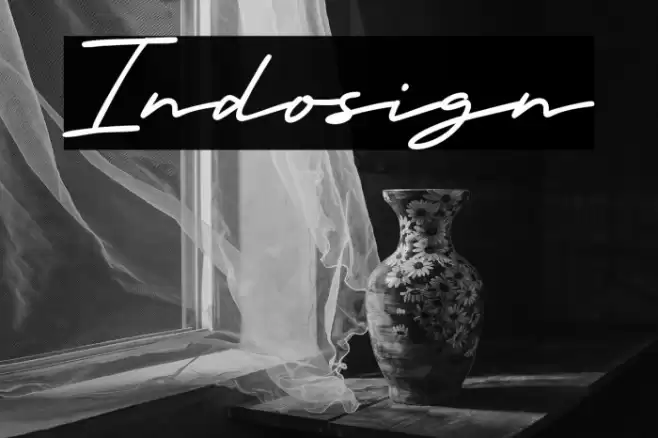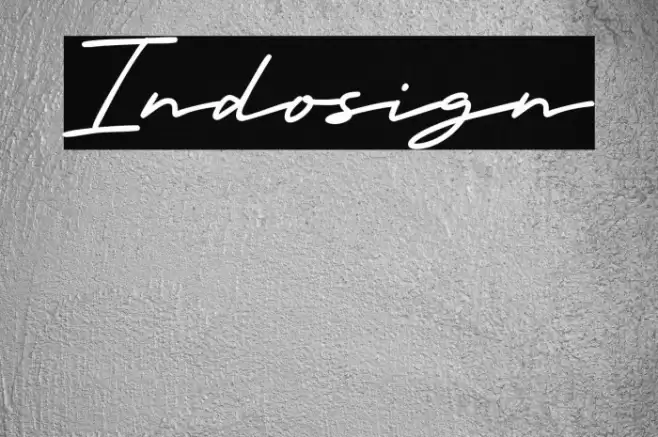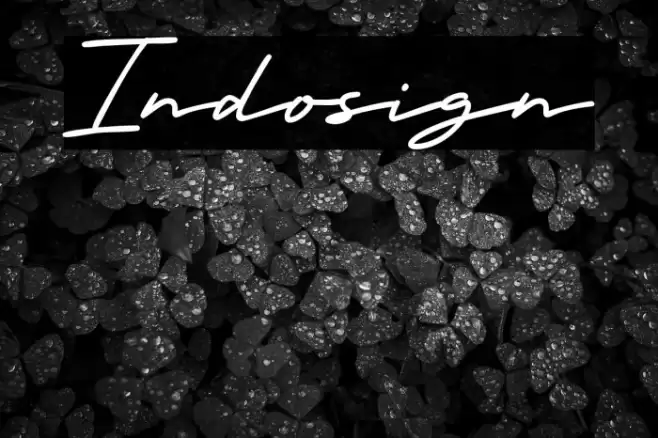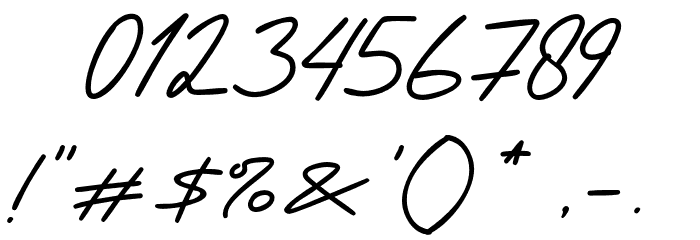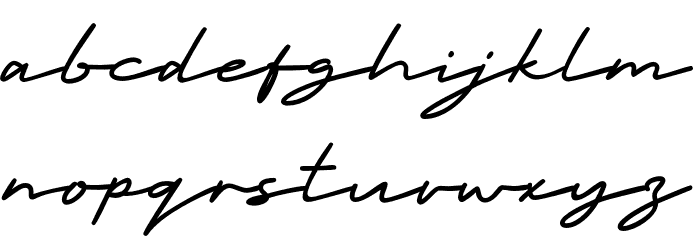
Indosign Font
Indosign Description
This font features a fluid and elegant script style, characterized by its smooth, flowing lines and cursive letterforms. The uppercase letters are slightly more angular, providing a dynamic contrast to the more rounded lowercase characters. Each letter connects seamlessly, creating a harmonious and continuous flow that mimics natural handwriting. The numbers and special characters maintain the same fluidity, ensuring consistency throughout. This font exudes a sense of sophistication and personal touch, making it ideal for projects that require a handwritten aesthetic.
A fluid and elegant script font with a natural handwritten style from Uncategorized fonts.
- Proposed Projects: Ideal for wedding invitations, personal branding, greeting cards, and elegant packaging designs.
- Overall Style: Elegant, Handwritten
- Use Case: Logos, Invitations, Personal Branding